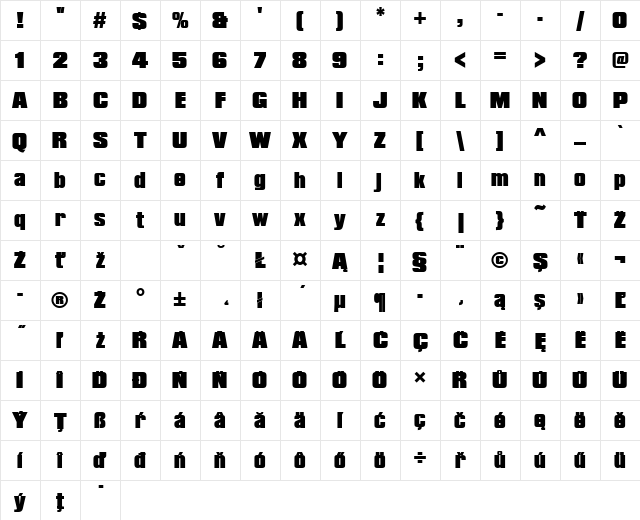
CompactaPEEBla Regular
Design Context for CompactaPEEBla
CompactaPEEBla is a composed and adaptable typeface that performs quietly and consistently across a wide range of design contexts. Its narrow stance lets it pack a punch even in space-constrained designs.